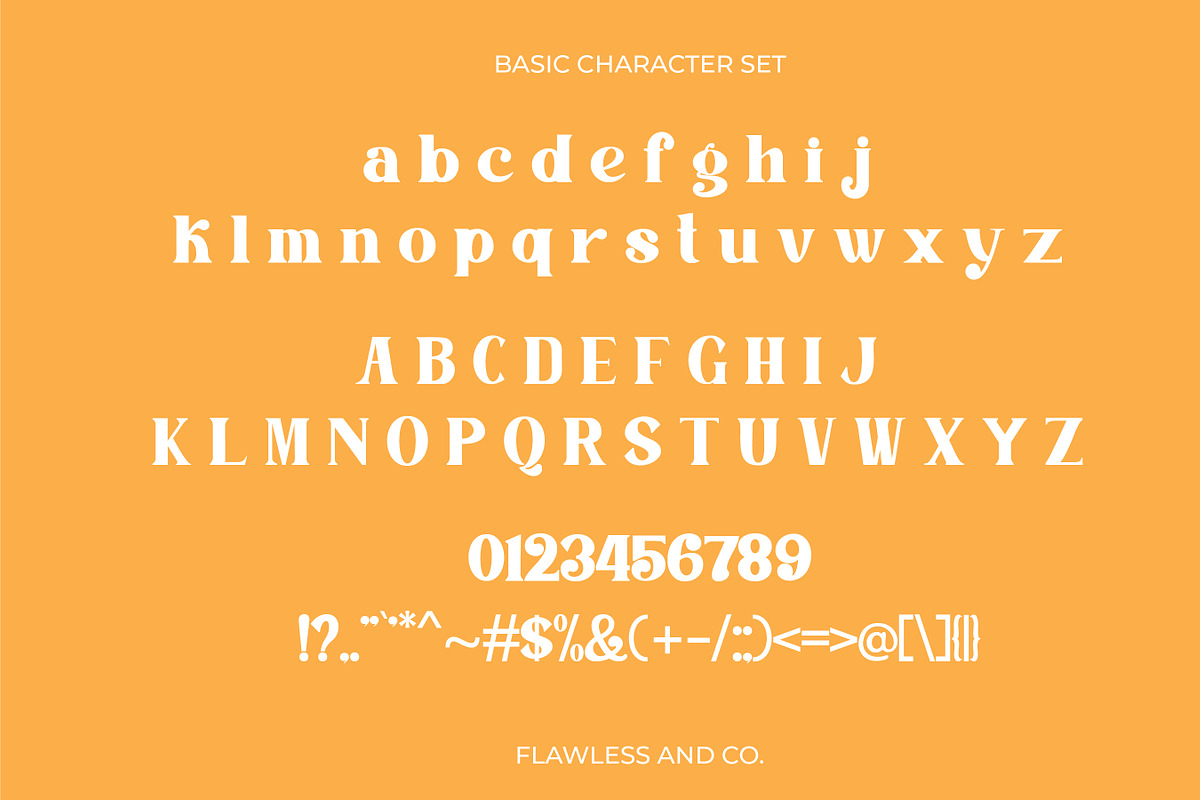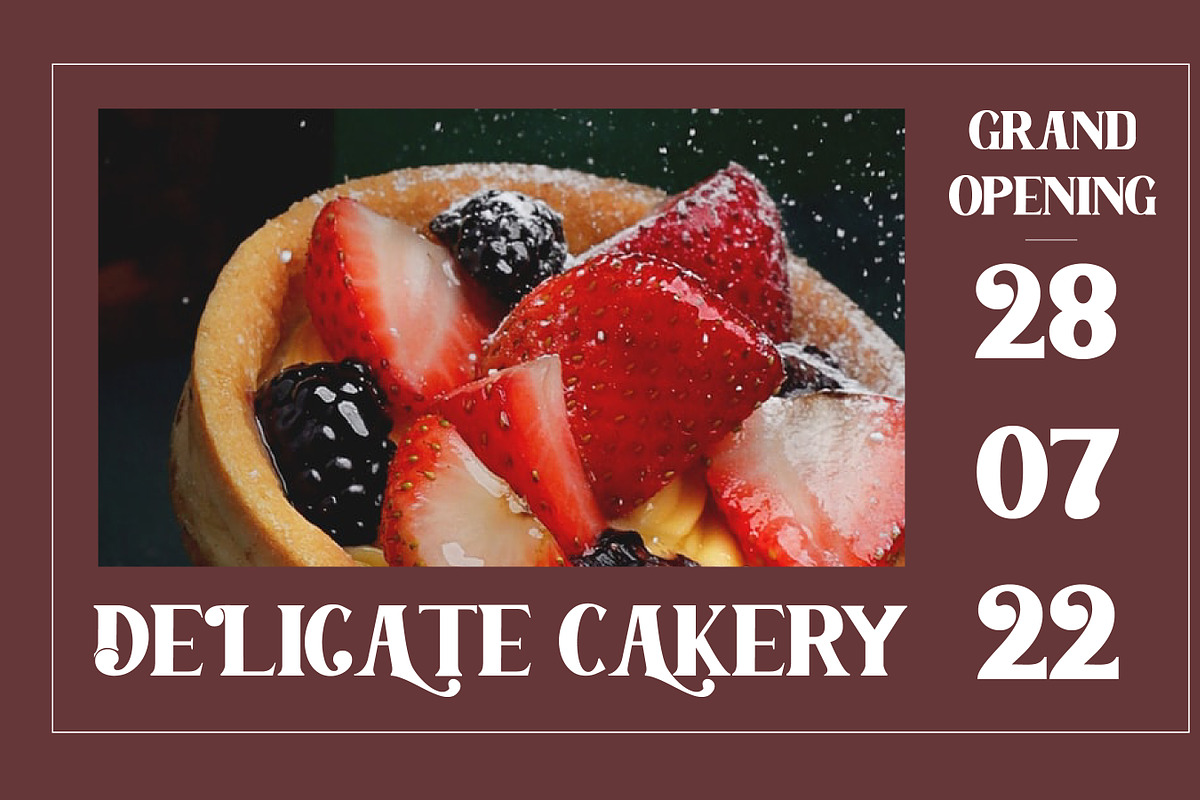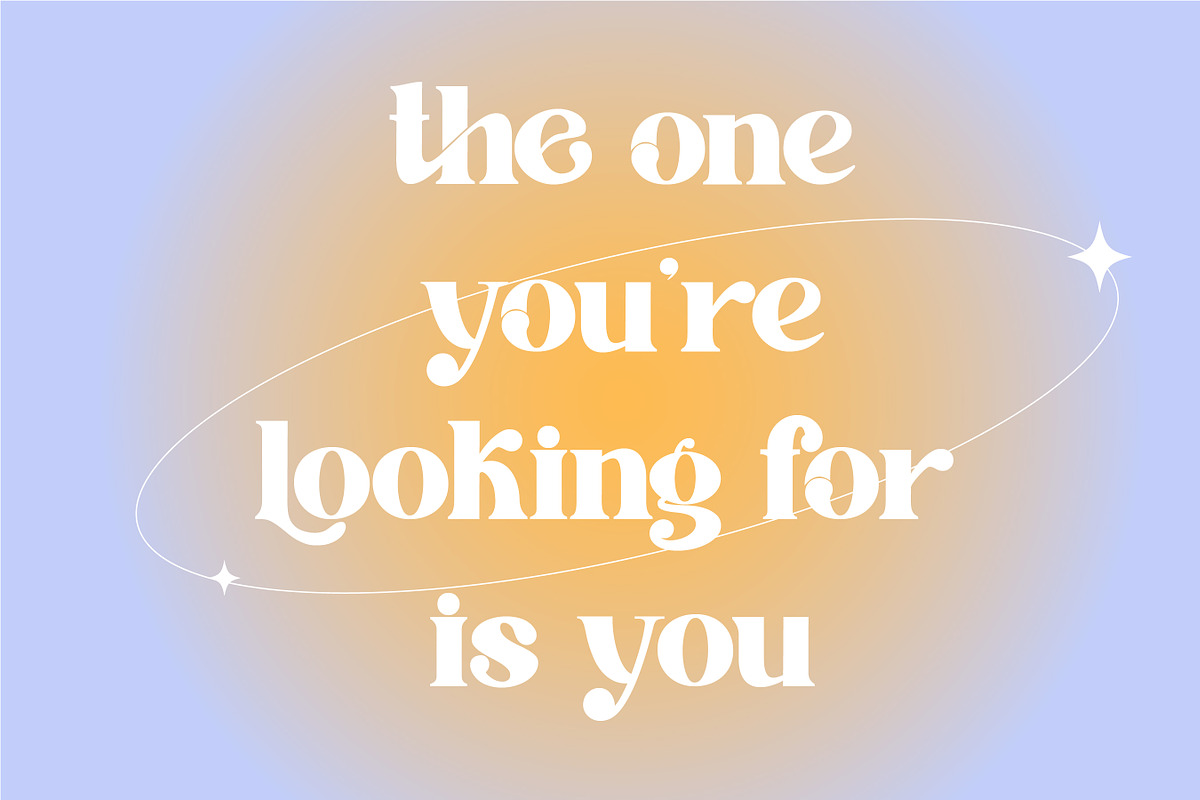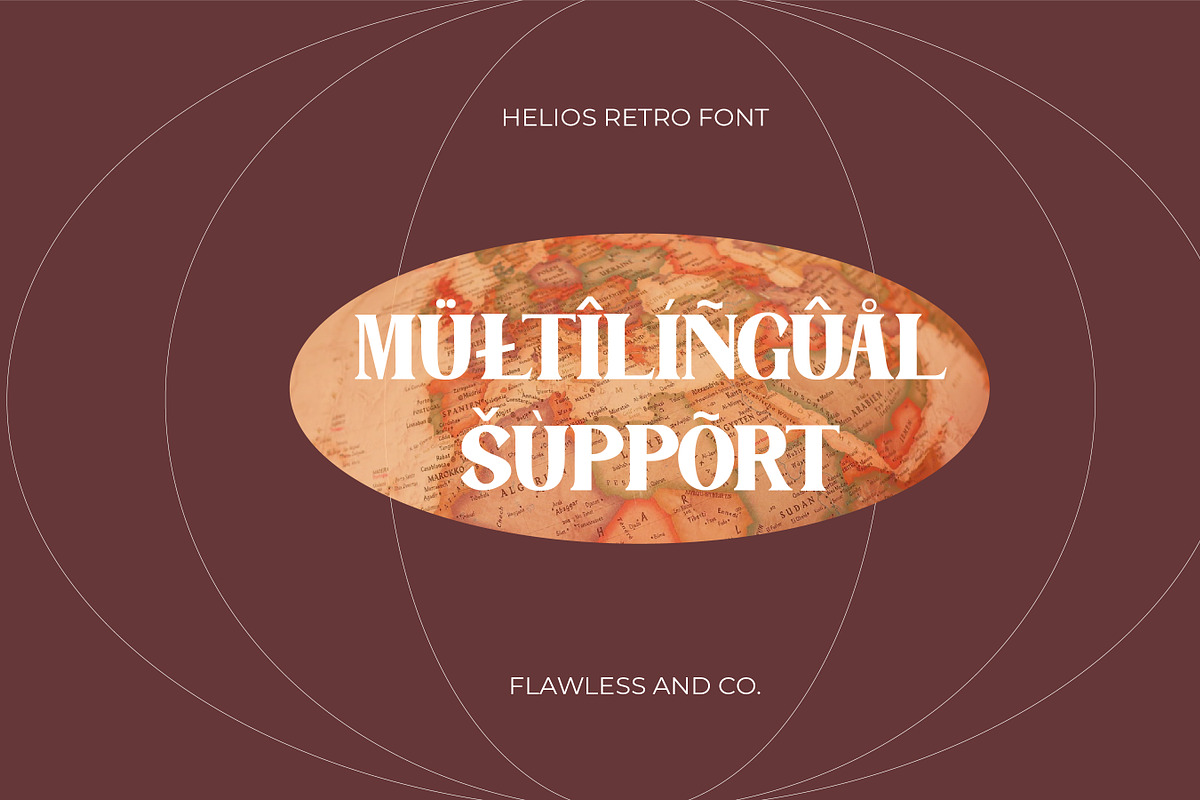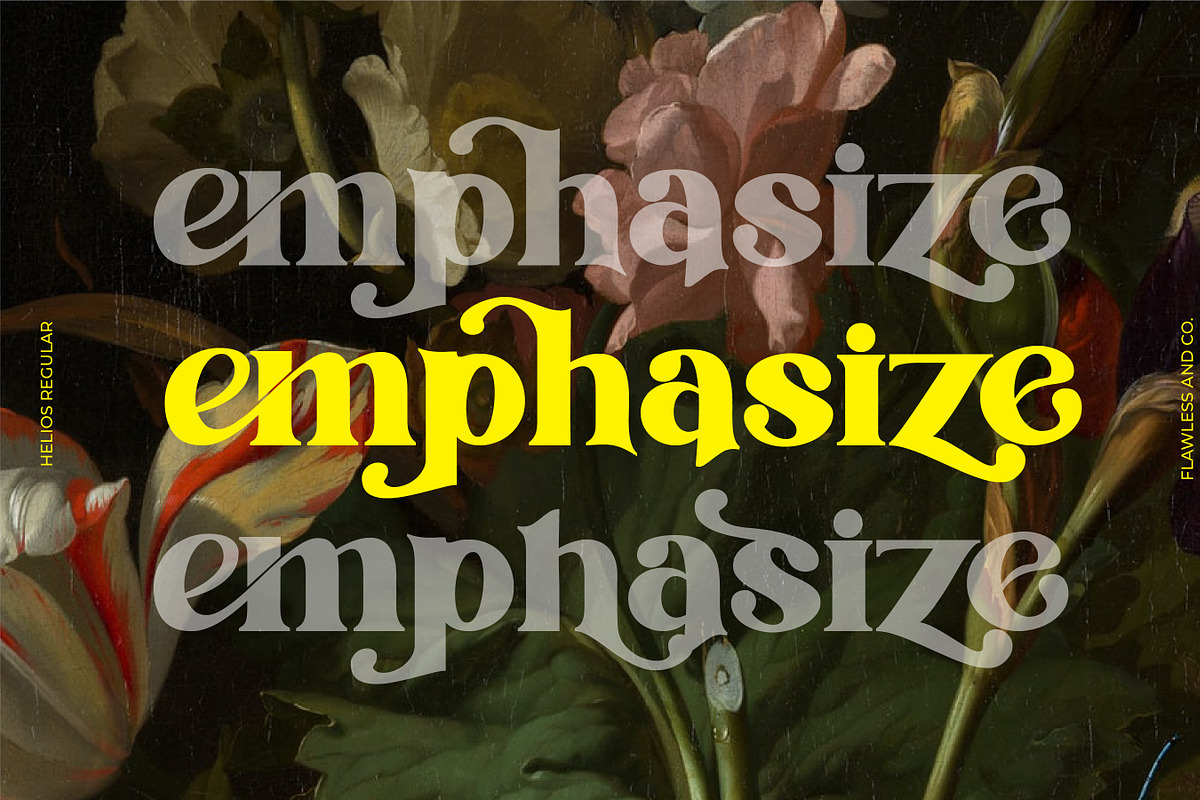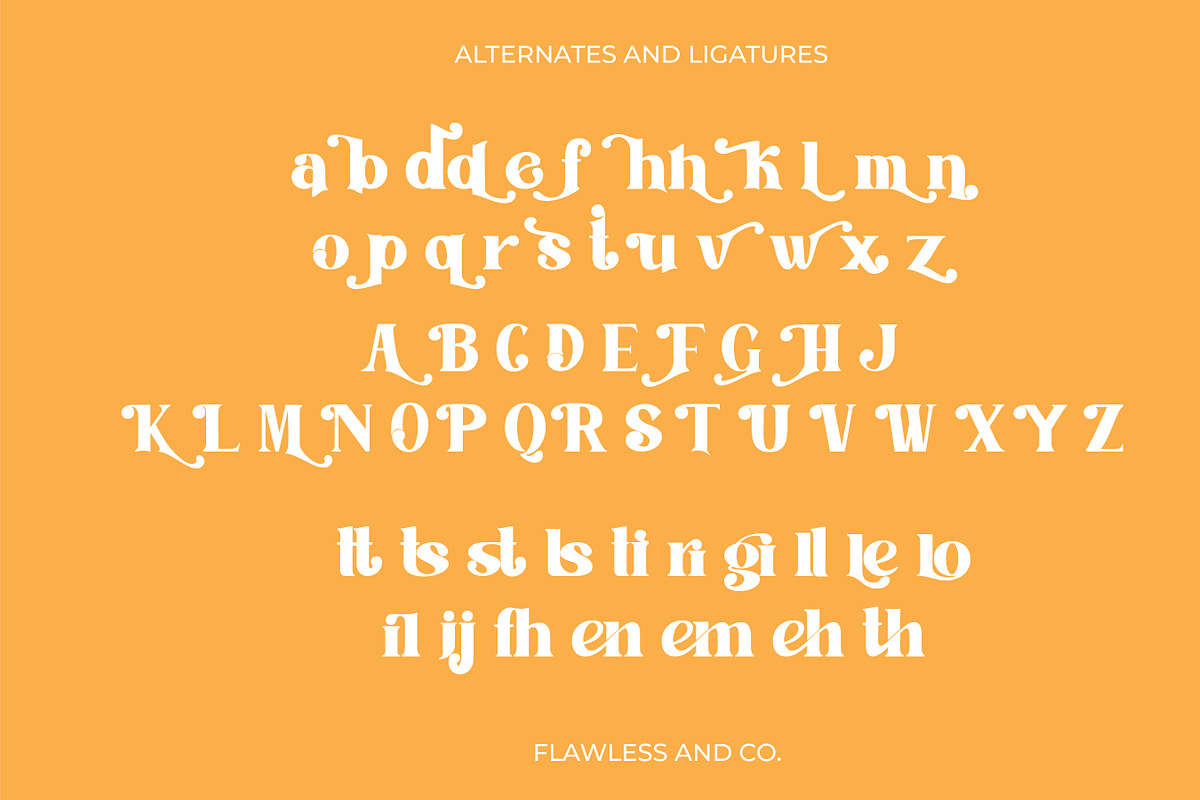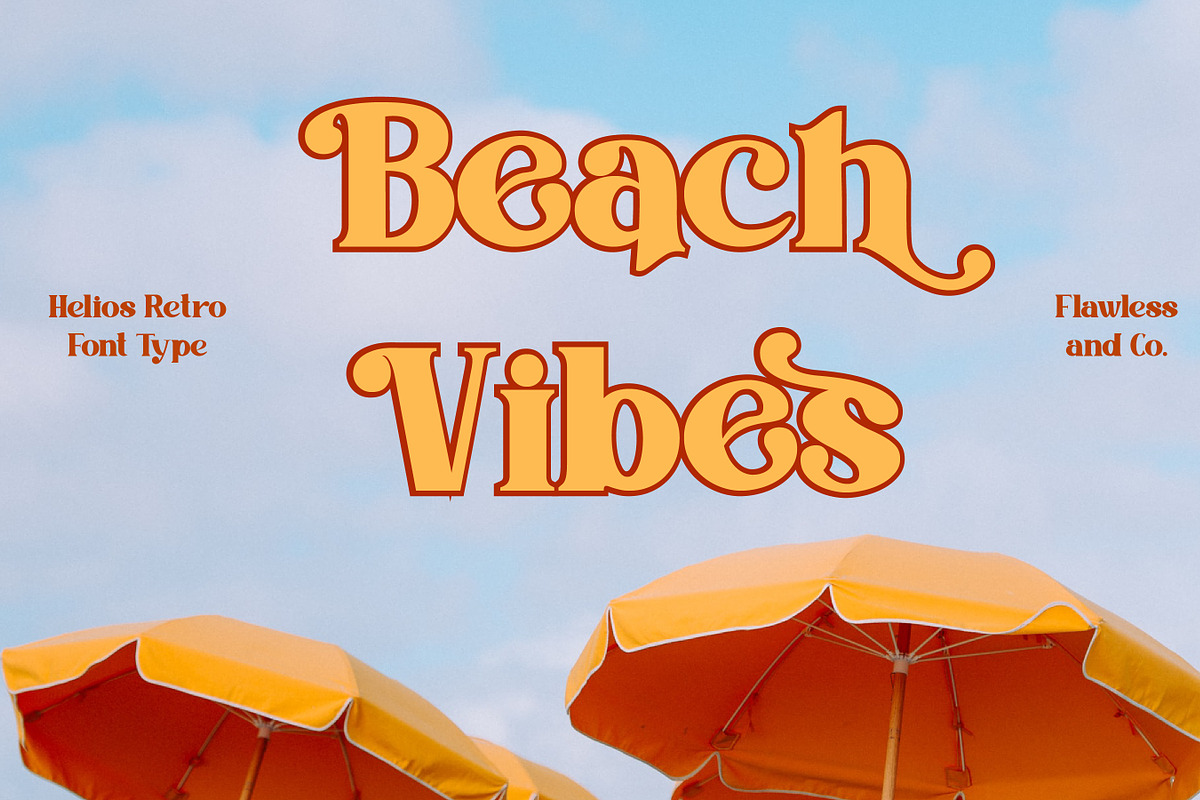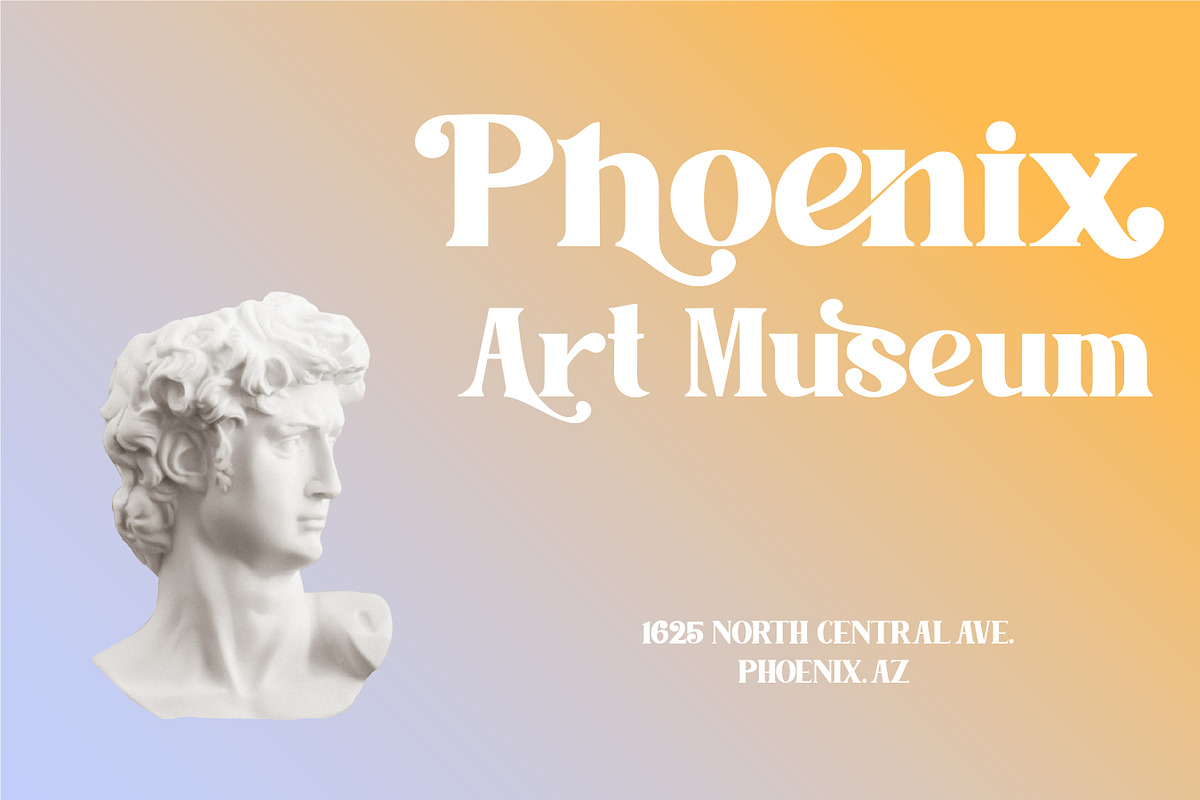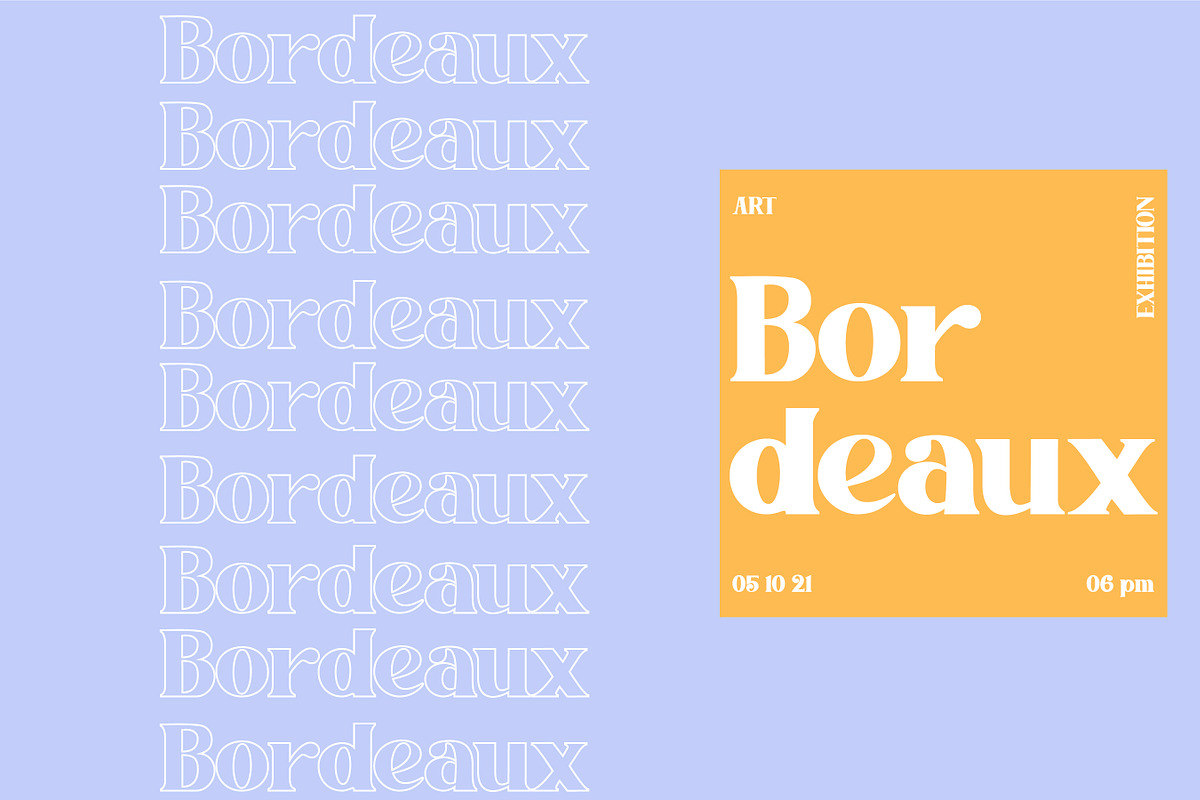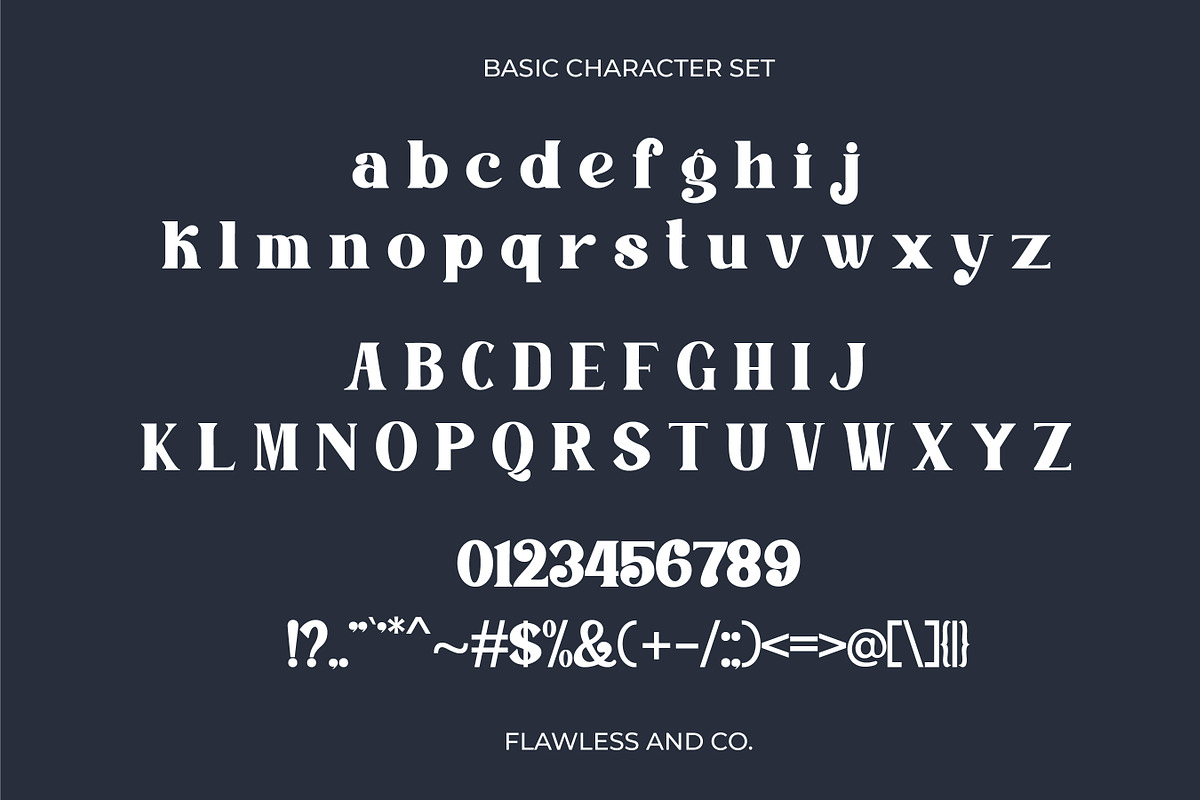
Helios Retro Font
introducing our new "Helios" Modern Retro with Fun and Elegant Style is perfect for branding, logos, invitation, master heads, and more.
Multilingual Uppercase alphabet A-Z Lowercase alphabet a-z Alternate Character Numbers 0-9 Some punctuation